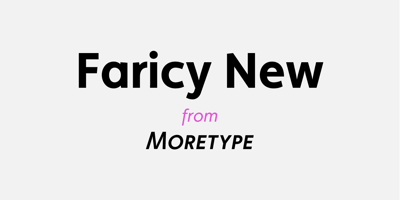
Faricy New Font is perfect for innovative startup branding, contemporary tech interfaces, modern digital campaigns, progressive design studios, cutting-edge product packaging, futuristic advertising materials, next-generation app designs, revolutionary brand identities, forward-thinking presentations, and pioneering marketing communications.
Faricy New Font is exciting because it represents the bold evolution of typographic innovation with its refreshingly modern letterforms that push boundaries while maintaining perfect readability and sophisticated appeal. Its dynamically progressive character design reflects both the courage to break from tradition and the wisdom to honor functional excellence, making it perfect for brands pioneering new directions and establishing tomorrow's design standards today.
Faricy New Font family includes ultra-thin, thin, light, regular, medium, bold, and black weights, each with corresponding italic versions. The font family also features contemporary ornaments, innovative ligatures, progressive symbols, and cutting-edge decorative elements that enhance its forward-thinking aesthetic and versatility.
This innovatively progressive typeface represents the perfect fusion of typographic tradition and revolutionary innovation. Faricy New Font Free Download allows designers to explore its pioneering possibilities before making a commercial commitment. The font's ability to convey both contemporary sophistication and innovative leadership makes it ideal for brands establishing new market categories and pushing industry boundaries.
Whether you're developing disruptive startup identities, creating next-generation digital experiences, or designing breakthrough product communications, Faricy New Font brings an unmistakable sense of innovative leadership and contemporary excellence to every project. Its progressive character and pioneering heritage create powerful connections that resonate with audiences embracing change and seeking cutting-edge solutions.
The font's versatility excels in technology and innovation environments where forward-thinking design and contemporary appeal drive success. Its revolutionary character makes it particularly effective for tech startups, design agencies, innovation consultancies, and progressive brands seeking to establish market leadership with audiences demanding breakthrough thinking and contemporary excellence.
For designers working on projects requiring genuine innovation and contemporary appeal, Faricy New Font provides an exceptional solution. Its pioneering presence and comprehensive innovation-themed elements offer the tools needed for creating truly revolutionary communications, while its progressive sophistication ensures your designs capture the perfect balance of tradition and innovation that defines authentic breakthrough achievement and contemporary design excellence.